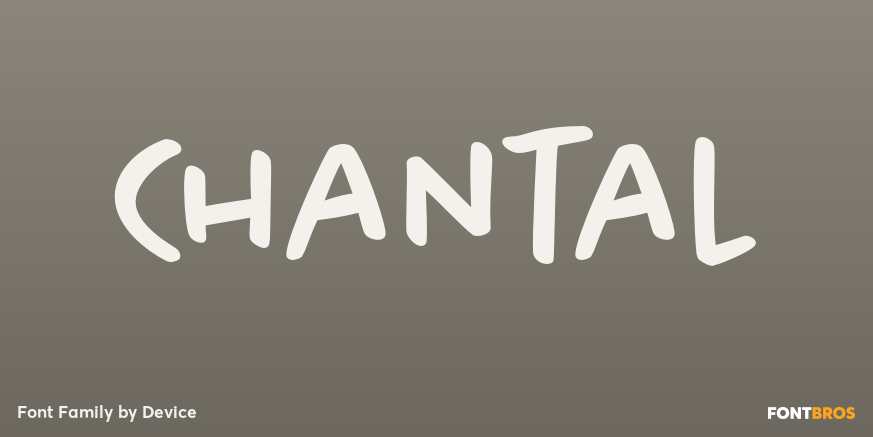
HomeFont BrosHandwrittenChantal HandwrittenScripts: CasualSans SerifWacky Chantal FacebookXPinterestWhatsApp 1 of 1 About Chantal was designed to letter the RoboHunter series that Peter Hogan and Rian Hughes produced for 2000AD in 1993.  DOWNLOAD ON FONT BROSThis font is sold and delivered by Font Bros. Font Canyon may earn a commission if you buy through this link. People also explored Foslin & Magnetta Font Heavy Stifle Font Gradylands Font Pantara Font The Stars Font Orientypes Font Monogram Ethnic Gnome Font Christmas Wreath Font Bold Yeah Font 352 0 TagsChantalChantal Font Previous articleMetairieNext articleCopperplate Modern LEAVE A REPLY Cancel reply Comment: Please enter your comment! Name:* Please enter your name here Email:* You have entered an incorrect email address! Please enter your email address here Website: Save my name, email, and website in this browser for the next time I comment. Personal Use Free Black Friday Personal Use Free Read more about this font Xplor Personal Use Free Read more about this font New Normal Personal Use Free Read more about this font Masha Song Personal Use Free Read more about this font BLOG Exploring Font Trends Shaping Communication in the Digital Era Fonts, like all design elements, are subject to trends. They play a crucial role in communicating a brand's personality,... How to Cut Any Font on Cricut: Convert a Font to SVG (Free) How to Install and Use Fonts on Windows, macOS, and Web Projects To increase your work productivity, choose the most readable fonts.